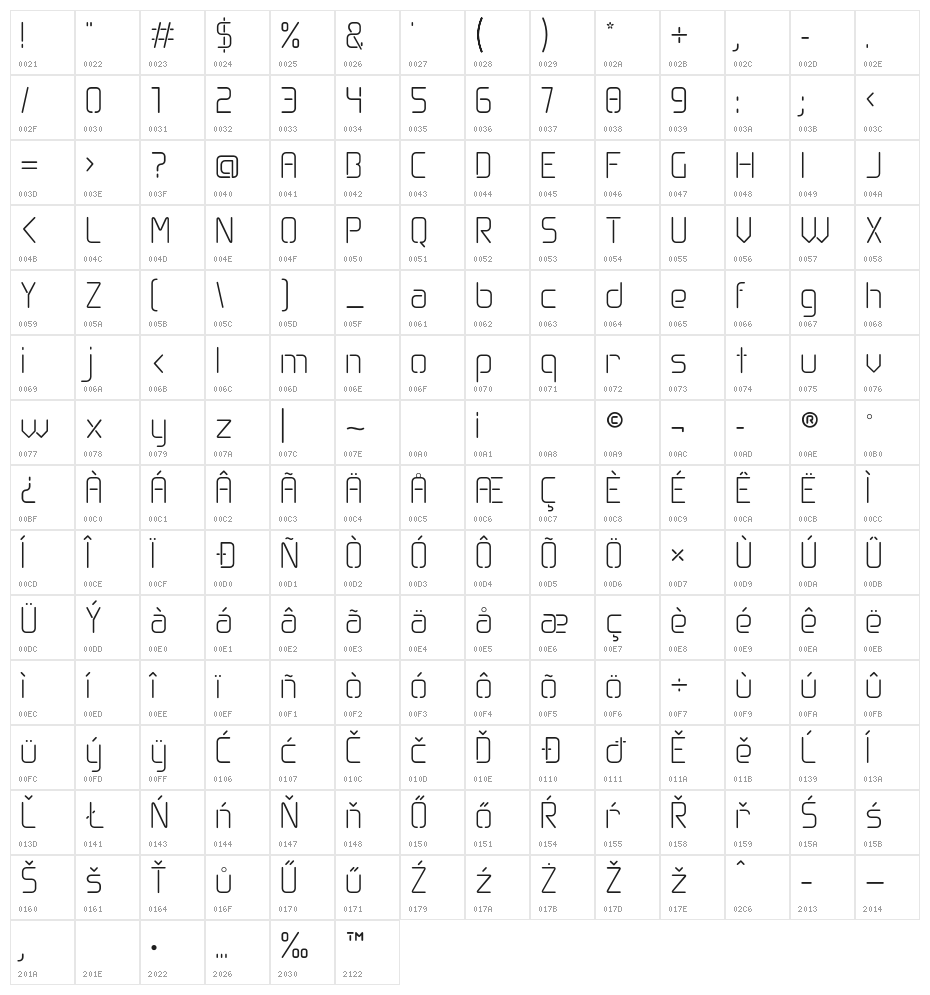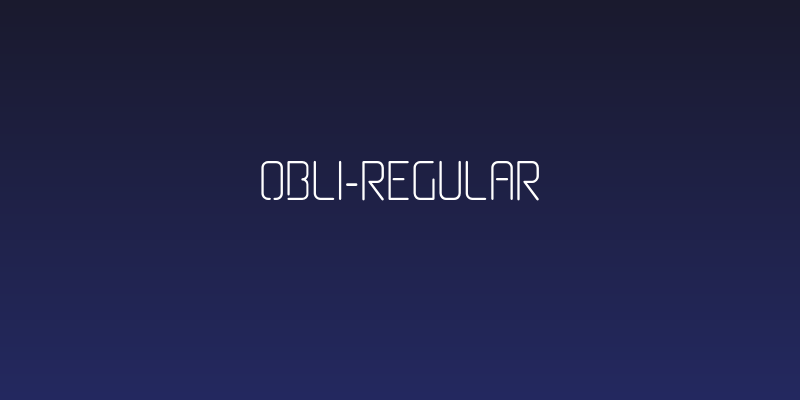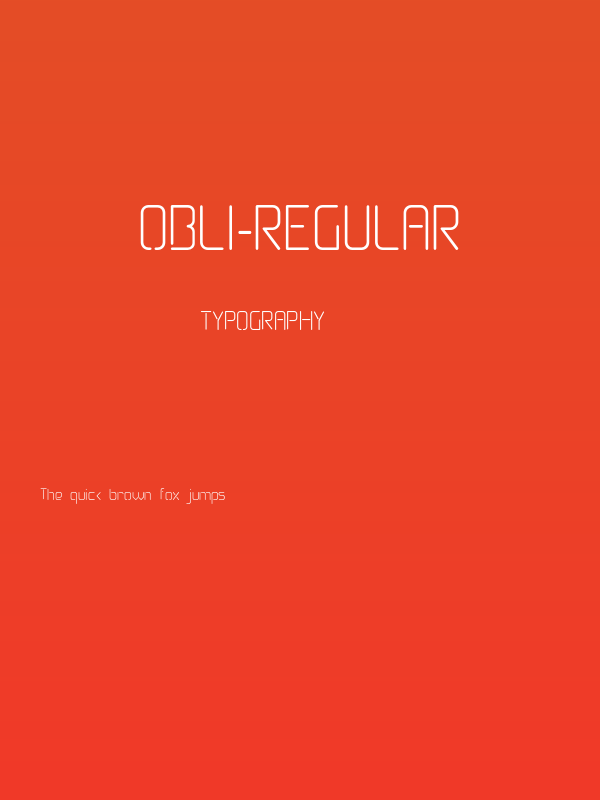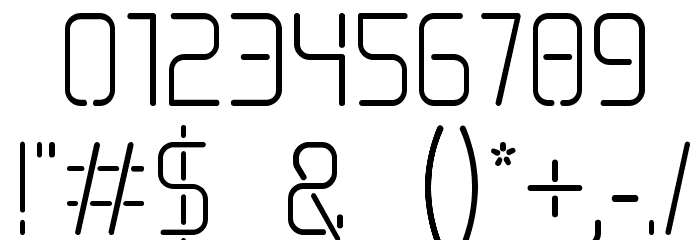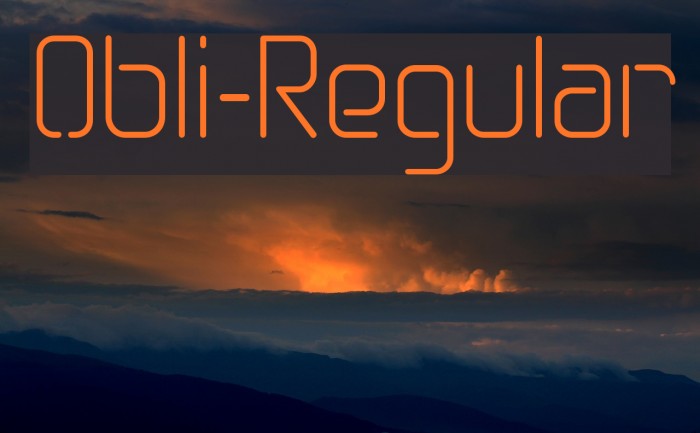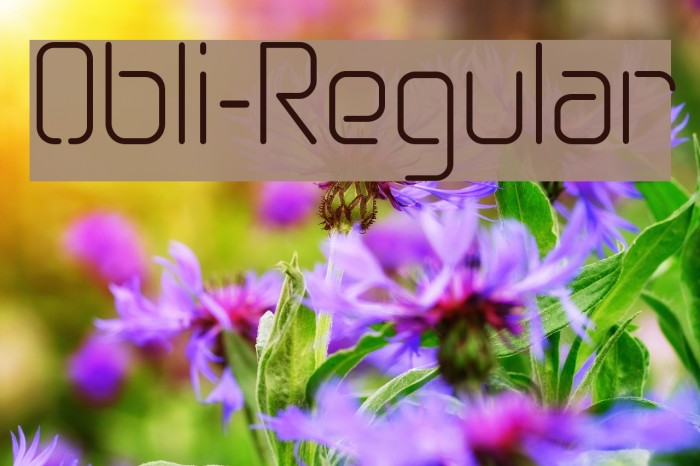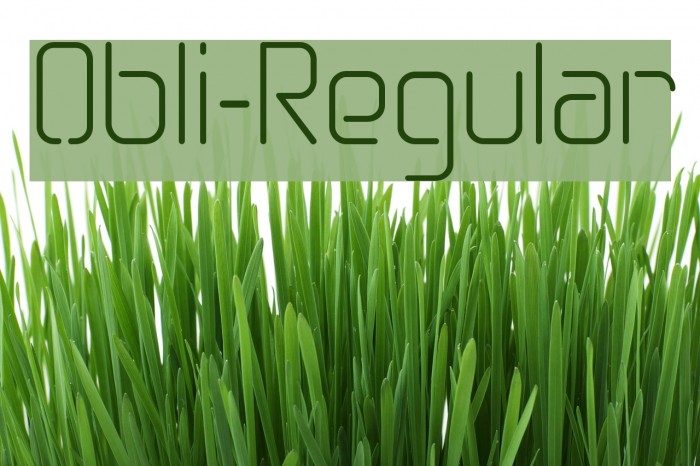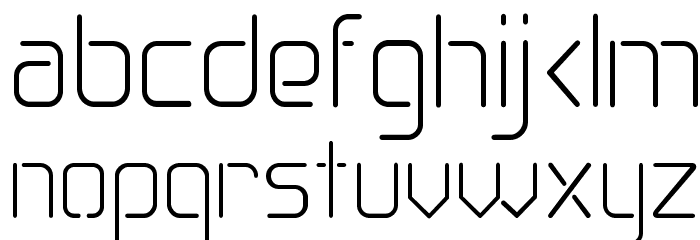
Obli-Regular Font
Obli-Regular Description
This font features a sleek, modern design with a geometric structure. The characters are composed of clean, straight lines and rounded corners, giving it a futuristic and technical appearance. The uppercase and lowercase letters maintain a consistent height, contributing to a uniform look. The numerals and special characters follow the same design principles, ensuring cohesion across all elements. The overall style is minimalistic, making it suitable for contemporary design projects that require a clean and sophisticated typeface.
| Proposed Projects | Ideal for technology branding, modern web design, and minimalist posters. |